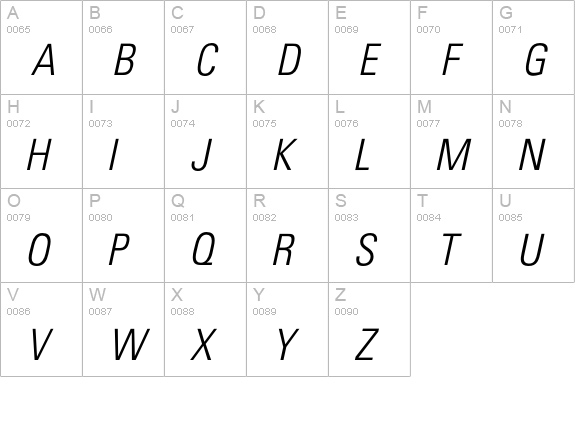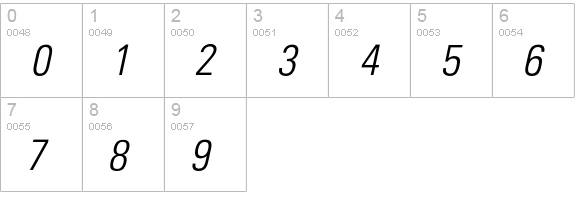
UniformCondLightOblique Font Details
UniformCondLightOblique is a modern and sleek font that exudes elegance and sophistication. Its condensed structure allows for maximum impact, making it perfect for headings, titles, and branding materials. The oblique style adds a touch of dynamism and flair, making every word come alive on the page. This font features clean lines and a uniform stroke width, giving it a polished and professional look. Its light weight adds a sense of delicacy and subtlety, making it ideal for projects that require a touch of finesse. UniformCondLightOblique is a versatile font that can be used across a wide range of design projects. From websites to print materials, this font will elevate your work to new heights. Its legibility ensures that your message will be conveyed with clarity and impact. One of the best things about UniformCondLightOblique is that it is freely available to download at FontsMarket.com. This means that you can access this amazing font without any cost, making it perfect for both personal and commercial use. So why wait? Enhance your designs with UniformCondLightOblique and make a lasting impression.